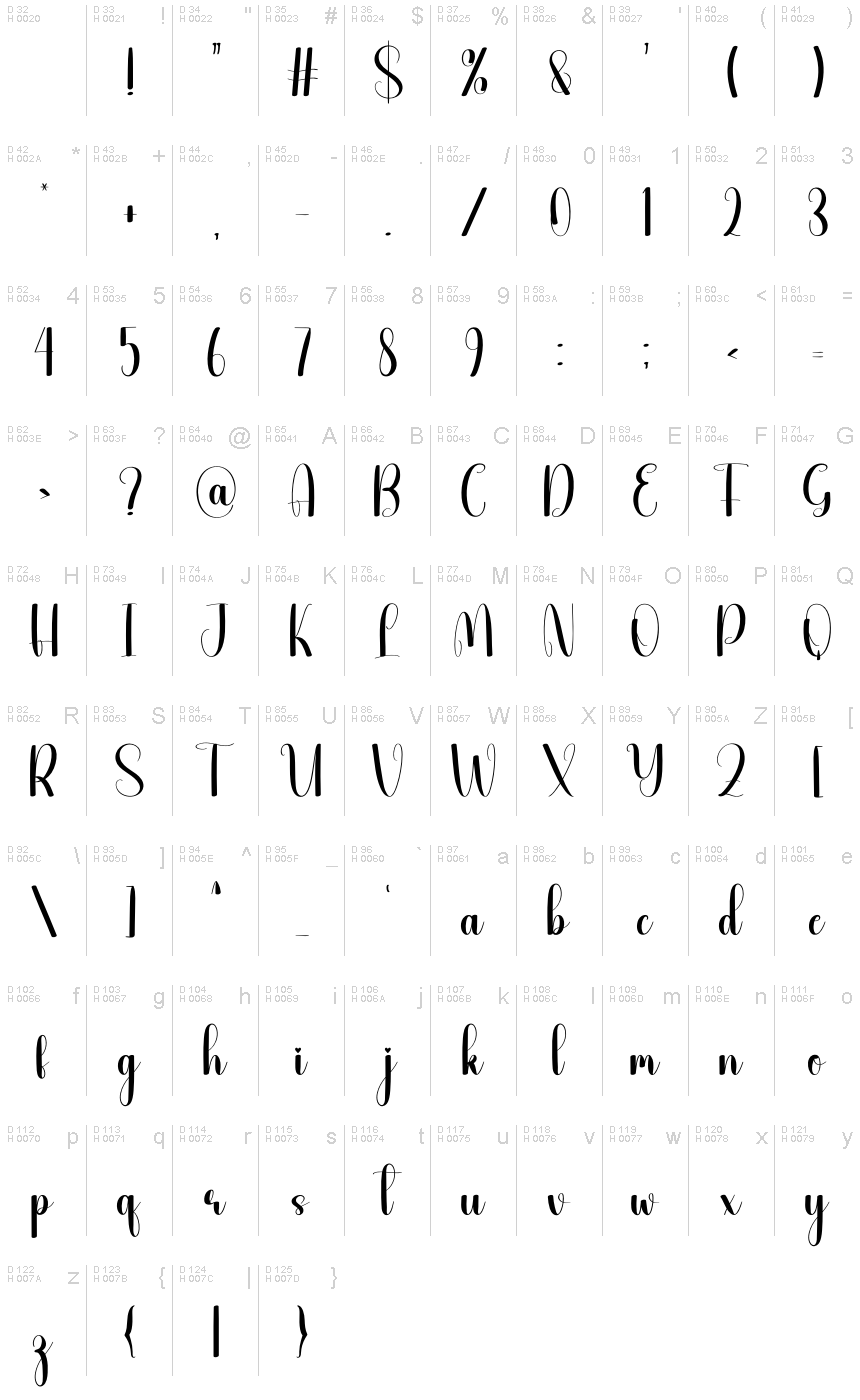
Simple School
Simple School font, designed by Scratchones, captures the essence of a handwritten style with its charming, flowing strokes and elegant simplicity. The heart detail in the letter 'i' adds a playful yet sophisticated touch, making this font a standout choice for creative projects. Its classic cursive appeal is perfect for invitations, greeting cards, or educational materials where personality and warmth are desired.
This free font offers an excellent opportunity to download and experiment with a stylish hand-lettered look that exudes both professionalism and creativity. Ideal for designers seeking to add a human element to their work, Simple School font is versatile and engaging across diverse design contexts.